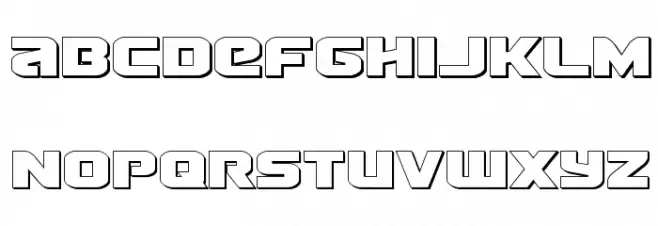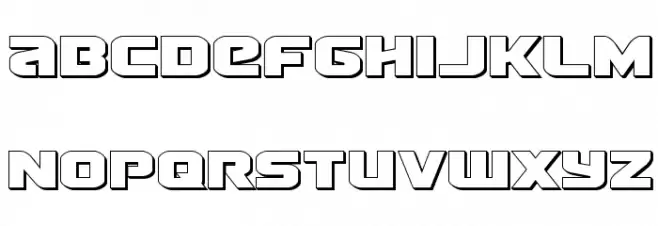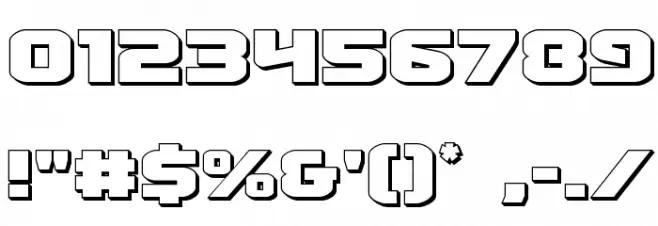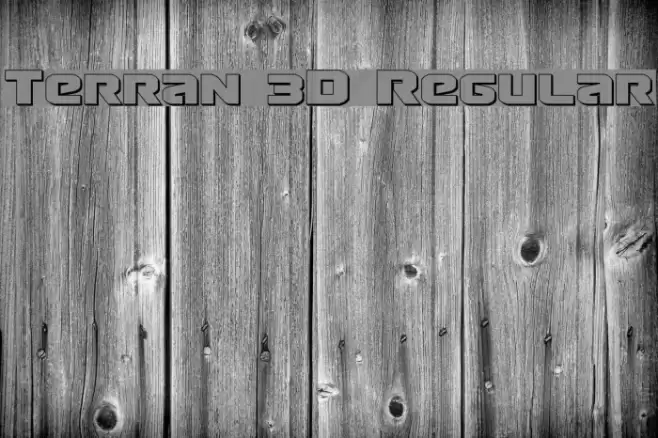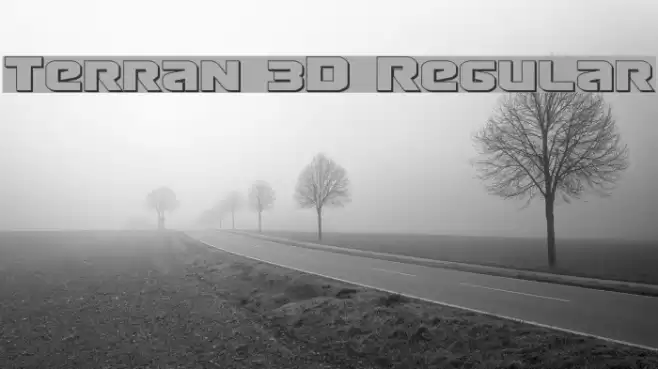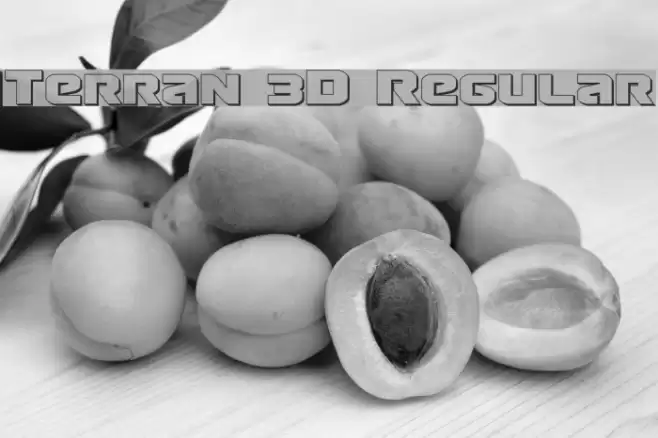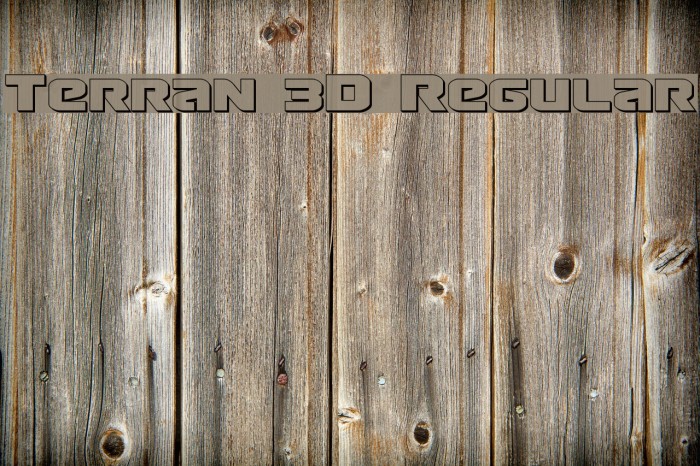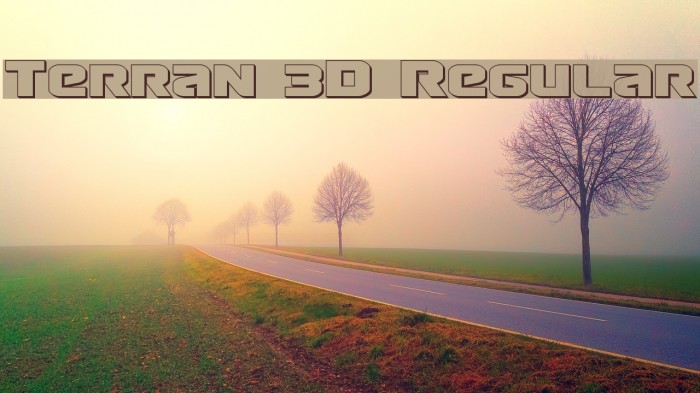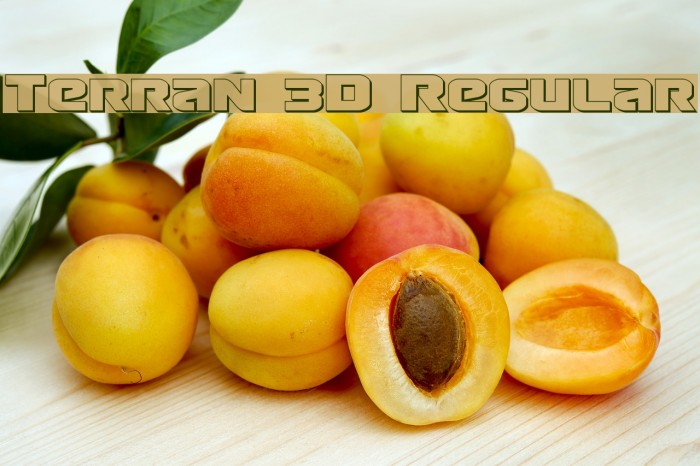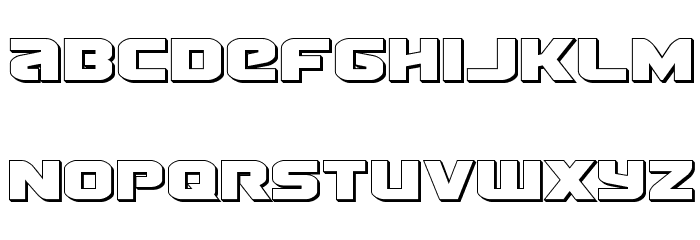
Terran 3D Regular
This font features a bold, three-dimensional appearance with a futuristic and geometric design. The characters are outlined, creating a hollow effect that adds depth and visual interest. The uppercase and lowercase letters maintain a consistent style, with sharp angles and clean lines that suggest a modern, tech-inspired aesthetic. The numerals and special characters are designed to match the overall theme, ensuring uniformity across all glyphs. This font's unique style makes it stand out, ideal for projects that require a strong visual impact.
A bold, 3D geometric font with a futuristic and tech-inspired design.
- Proposed Projects: Ideal for sci-fi themed posters, video game titles, technology branding, and futuristic event invitations.
- Overall Style: Futuristic